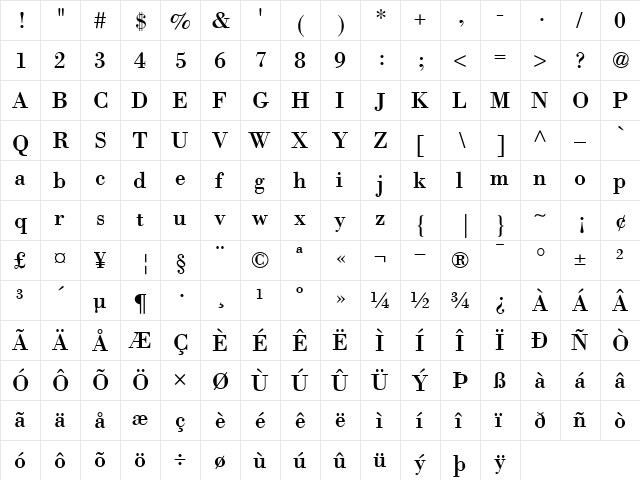
BodoniRoman Roman
Design Context for BodoniRoman Typeface
BodoniRoman is a composed and adaptable typeface that performs quietly and consistently across a wide range of design contexts.
Pro Tip: Pair BodoniRoman with a font of contrasting weight or personality to build a more expressive typographic hierarchy.